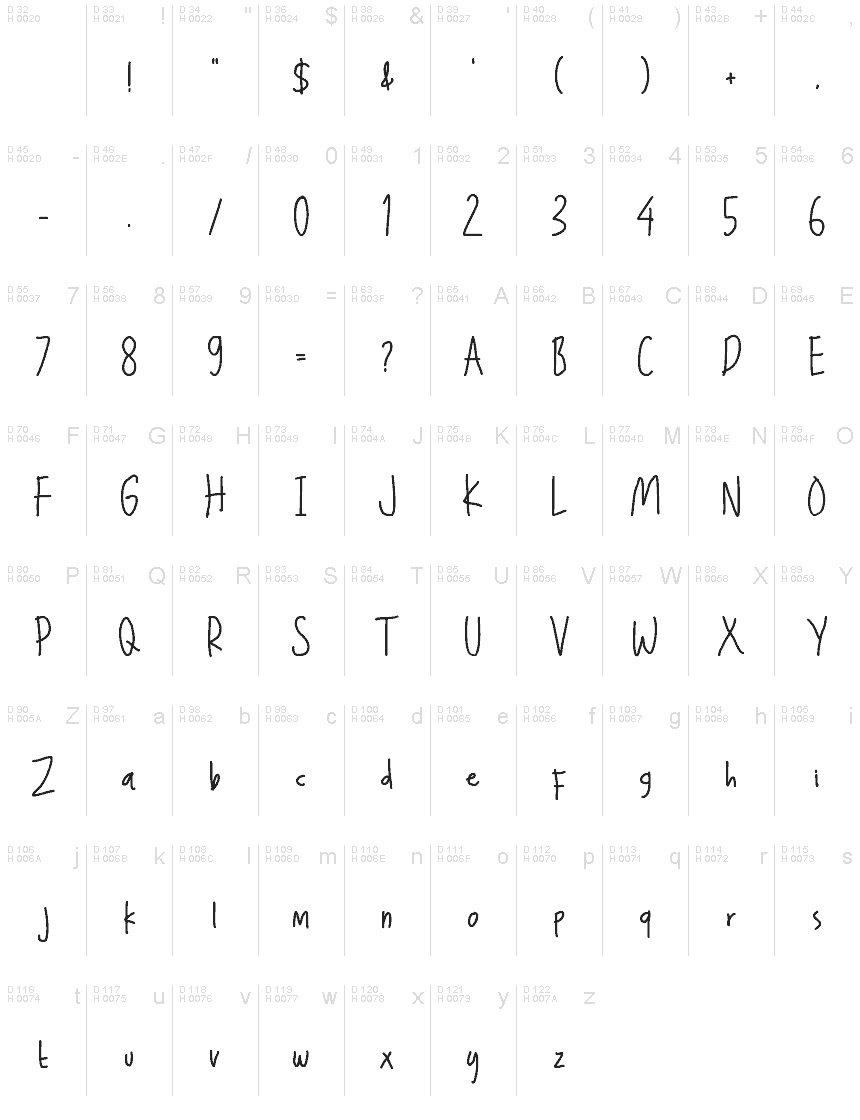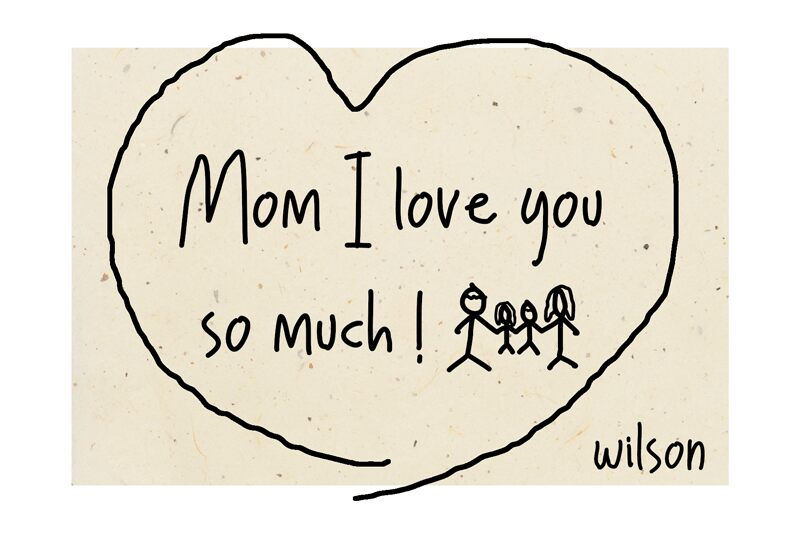
Mom I love you so much !
Mom I love you so much! What better way to express your love than to use the handwritten demo font with the same name provided by AV Type. The elegant curves, smooth loops and graceful strokes create a timeless piece that inspires all who see it. A font that’s also fun and lively, it’s perfect for invitation cards, posters, magazine articles etc.